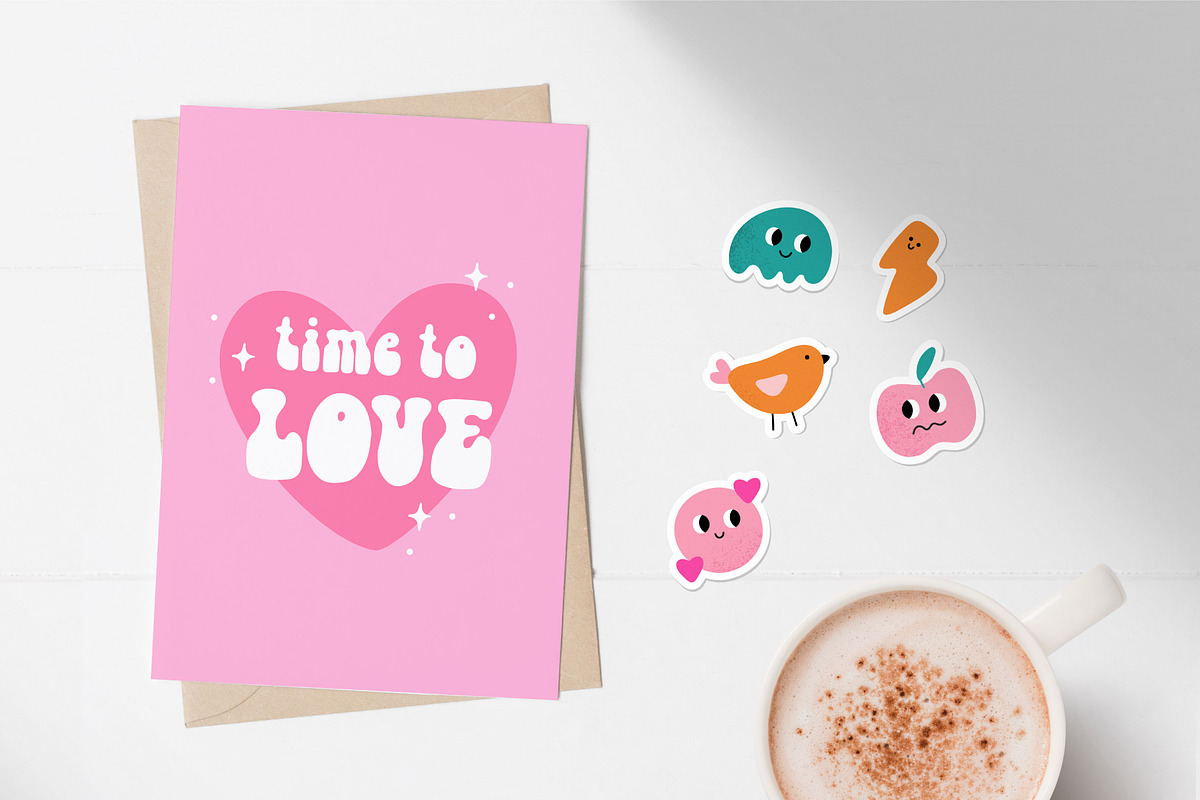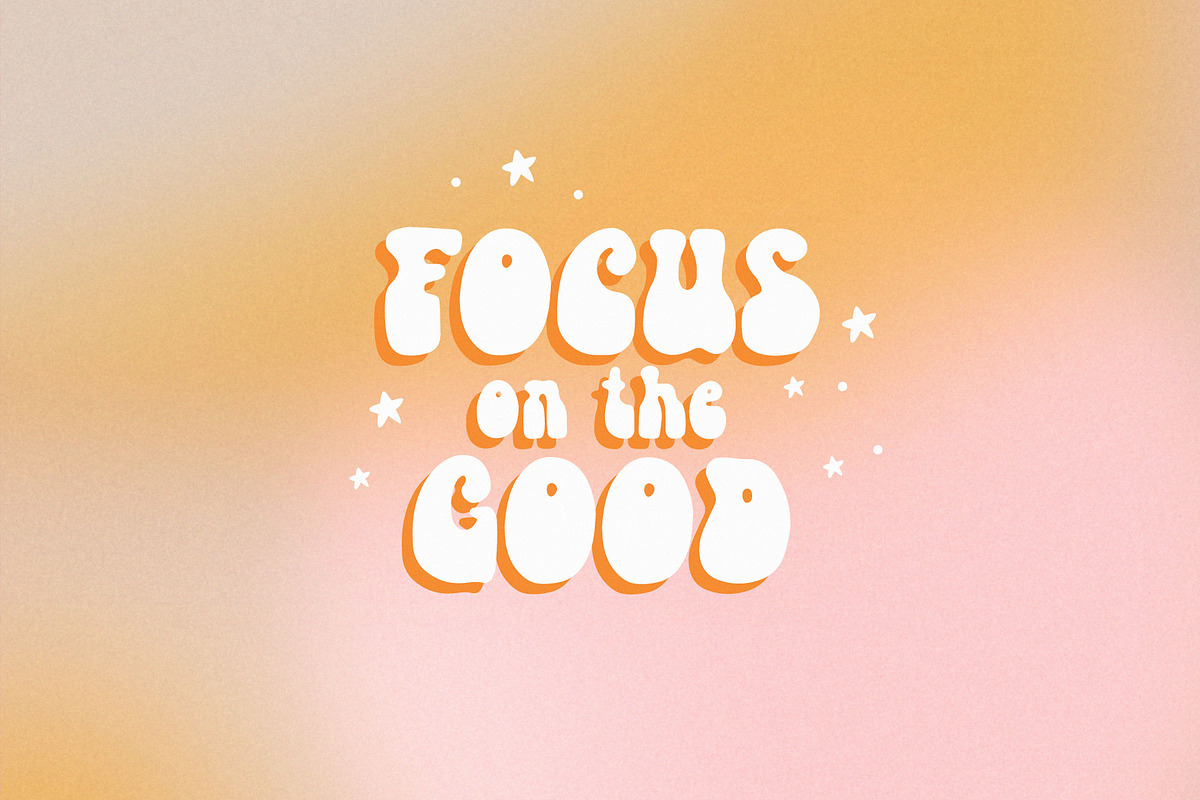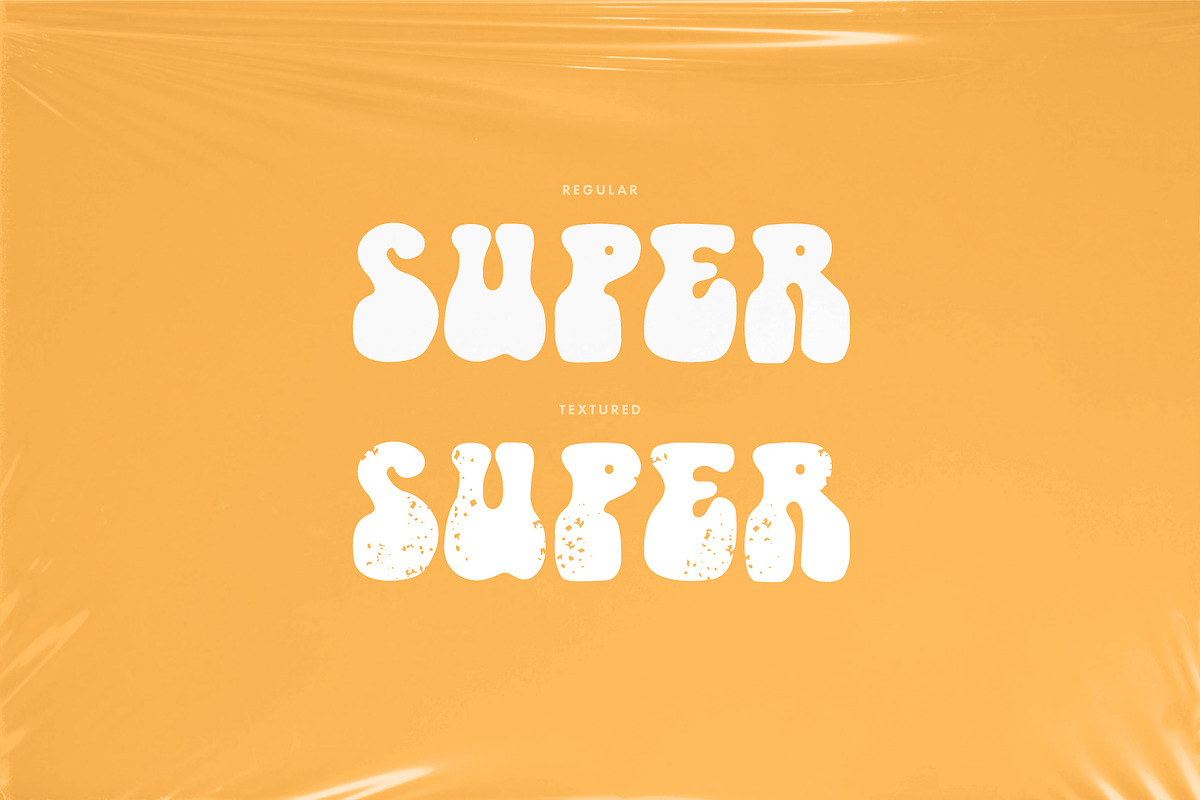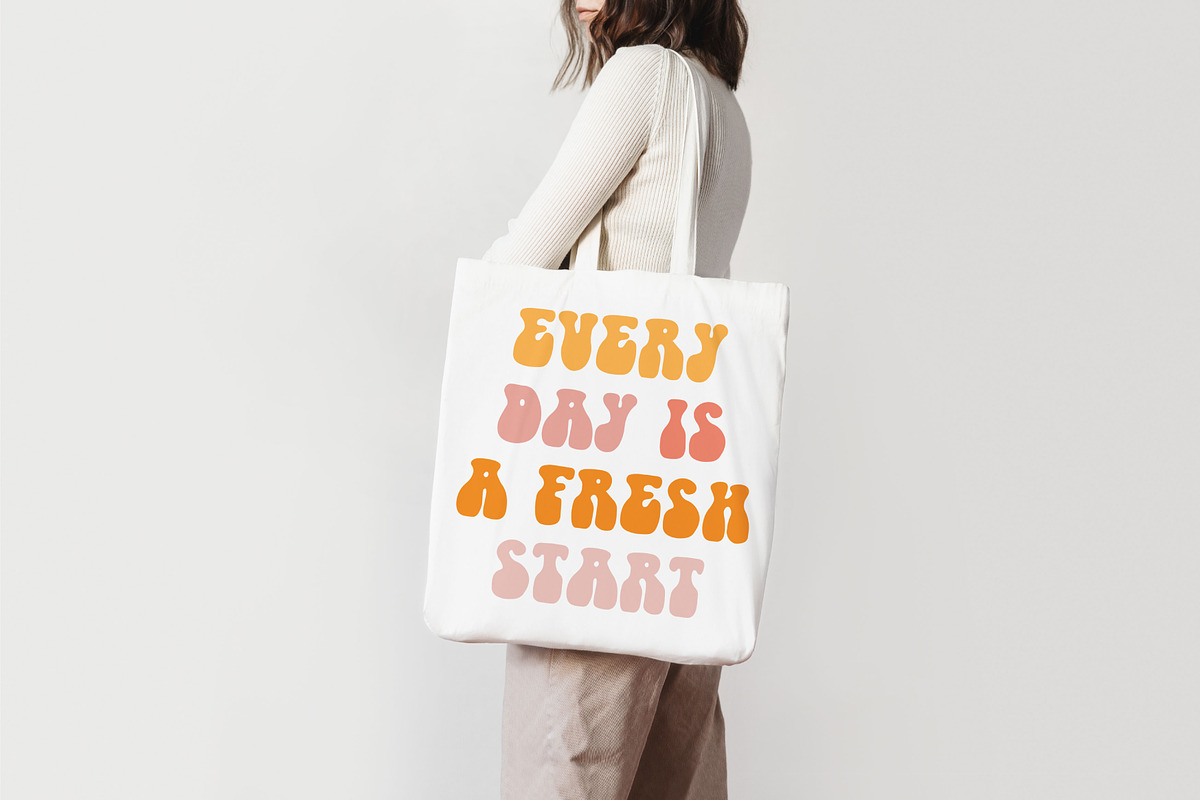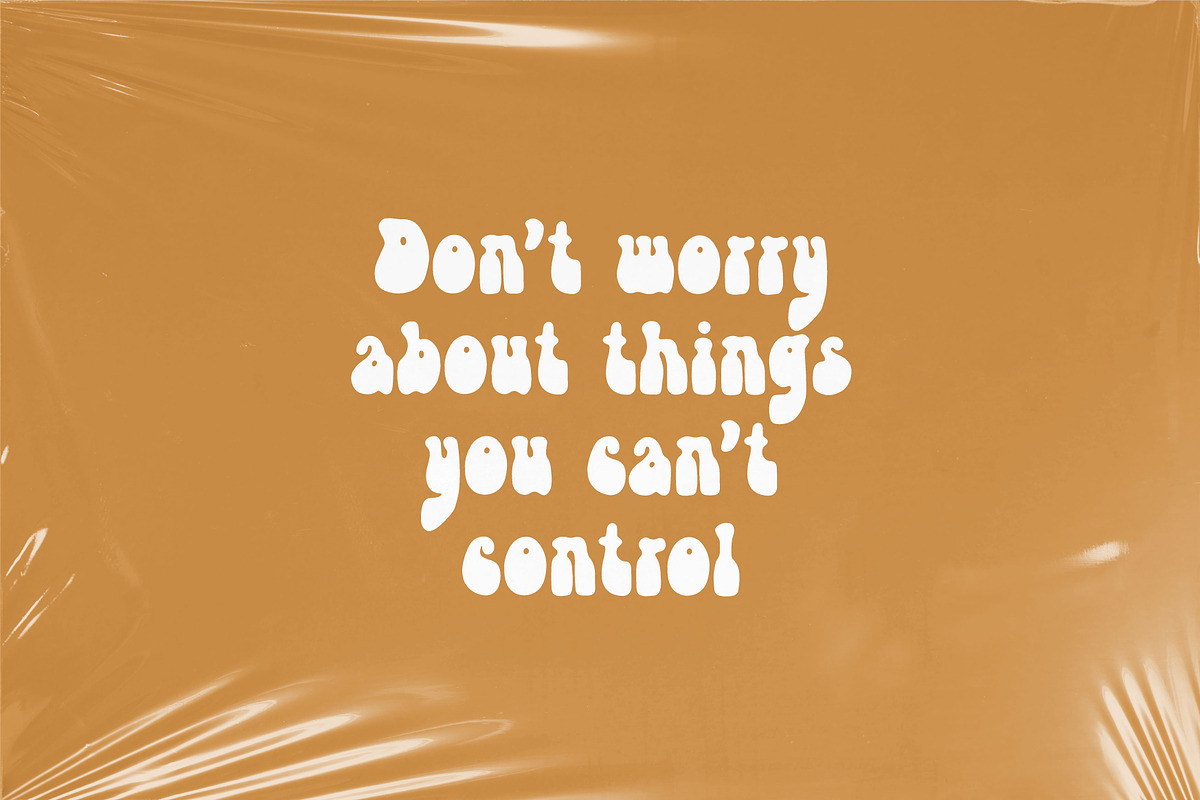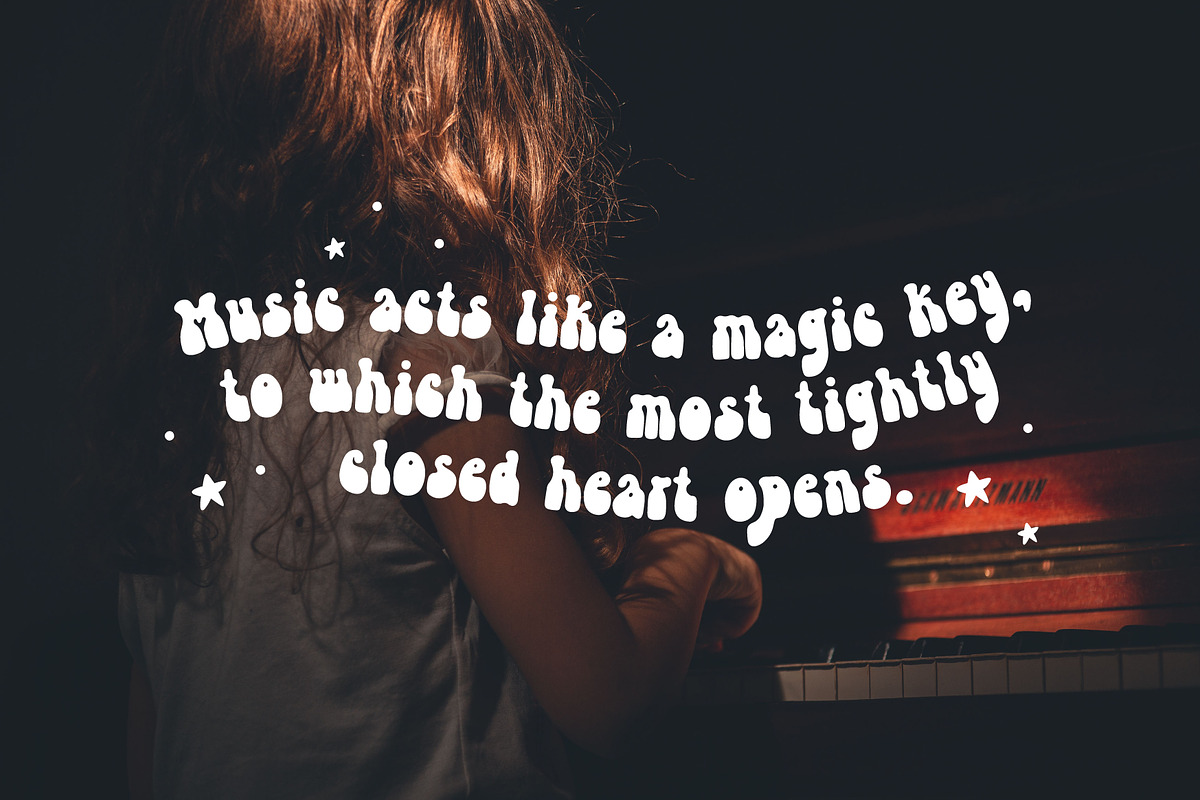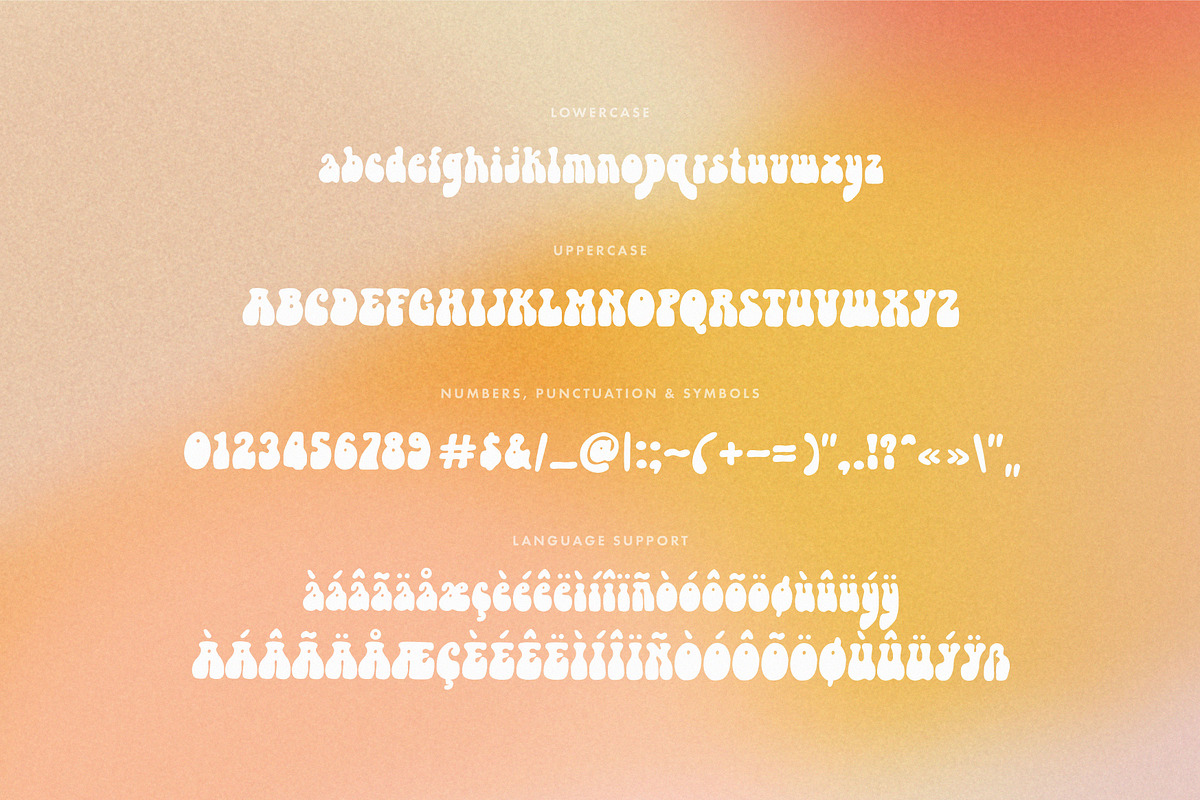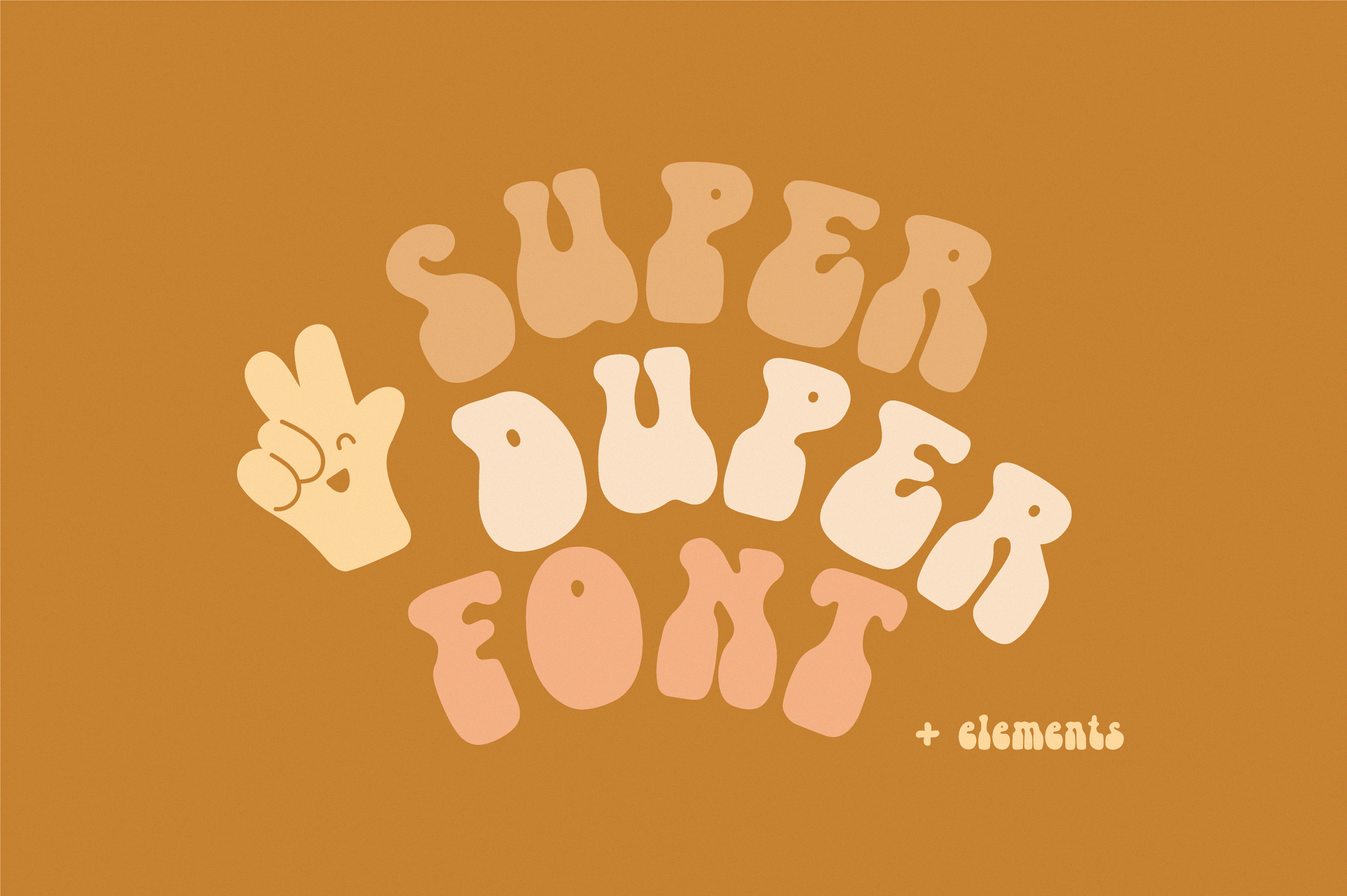
Super Duper | Handwritten font
Use for logos, quotes, invitations, greeting cards, journals, posters, baby clothing and more. This handwritten font will make your design looks great and fun!